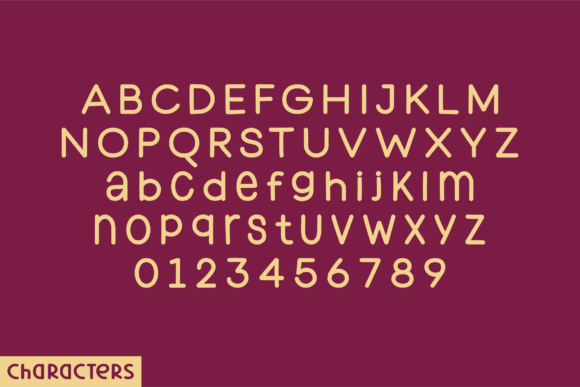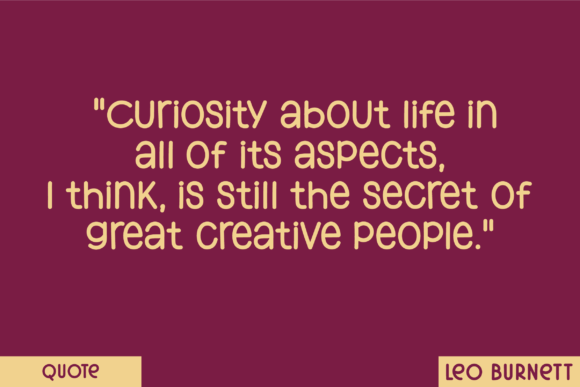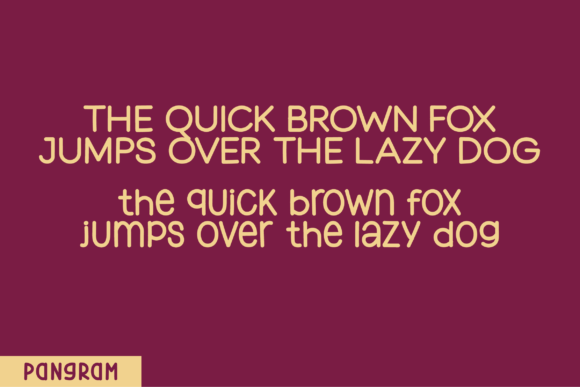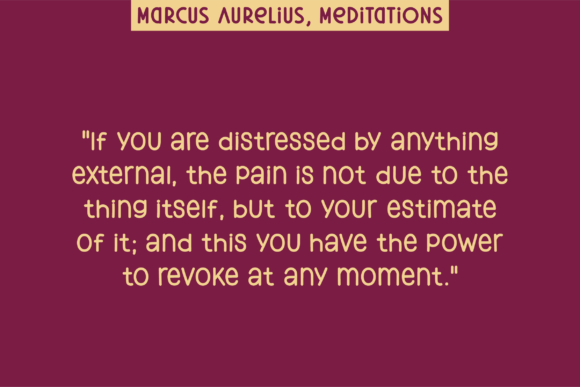
Introduction to Requizy Font
Introducing Requizy, a pure artisanal handwriting font meticulously crafted without modifying a single node in every character’s indentation for a unique and captivating look.
Key Features of Requizy Font